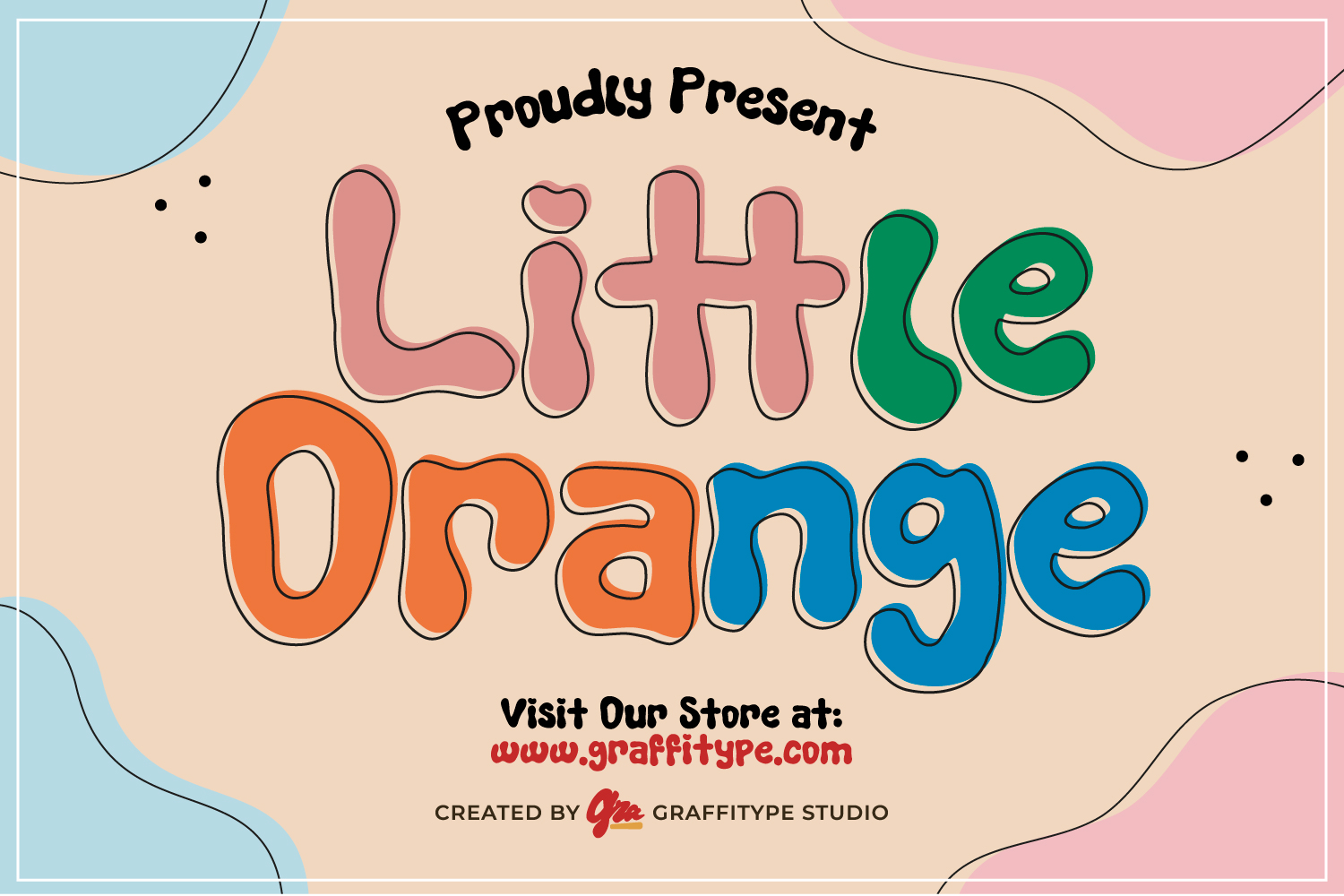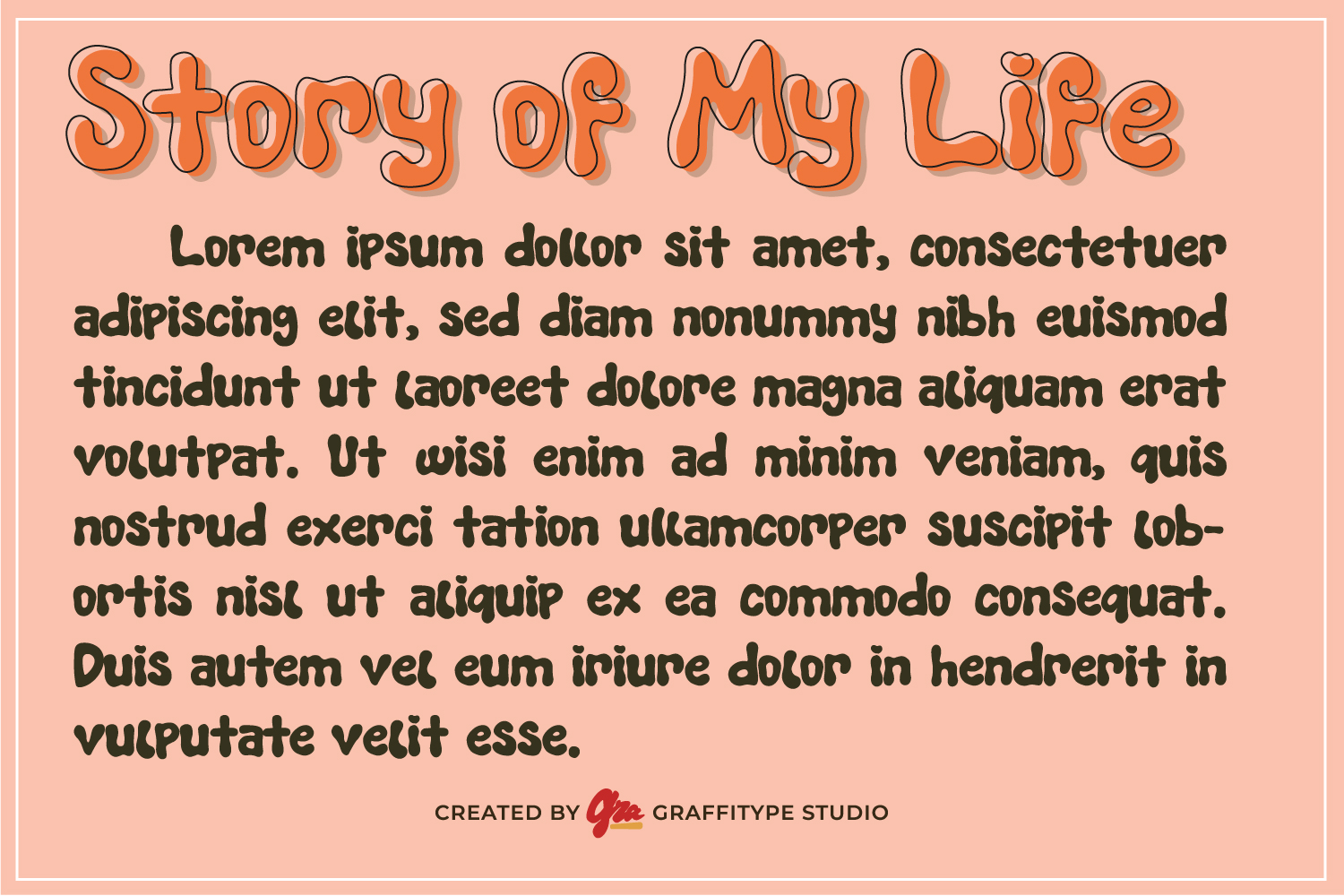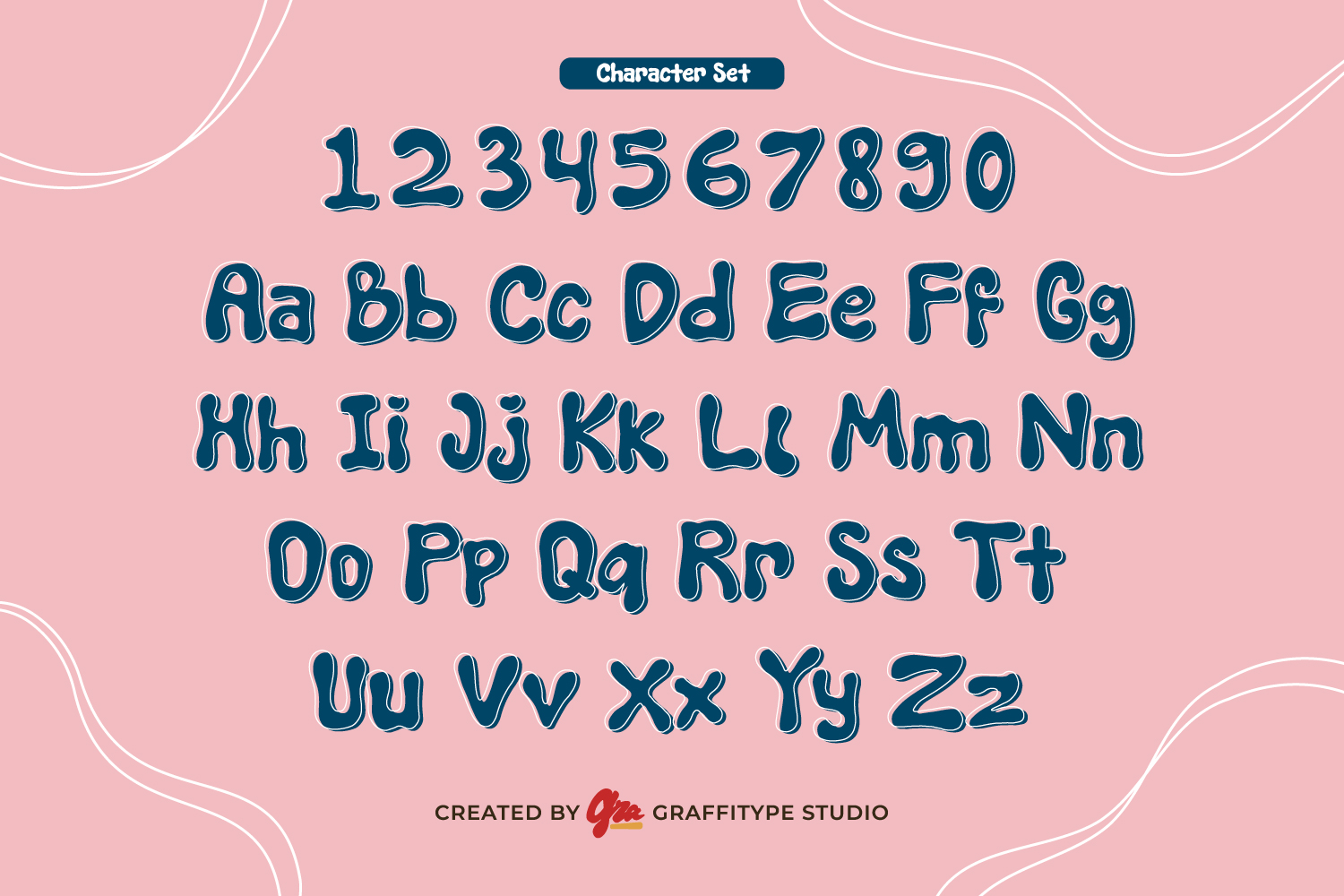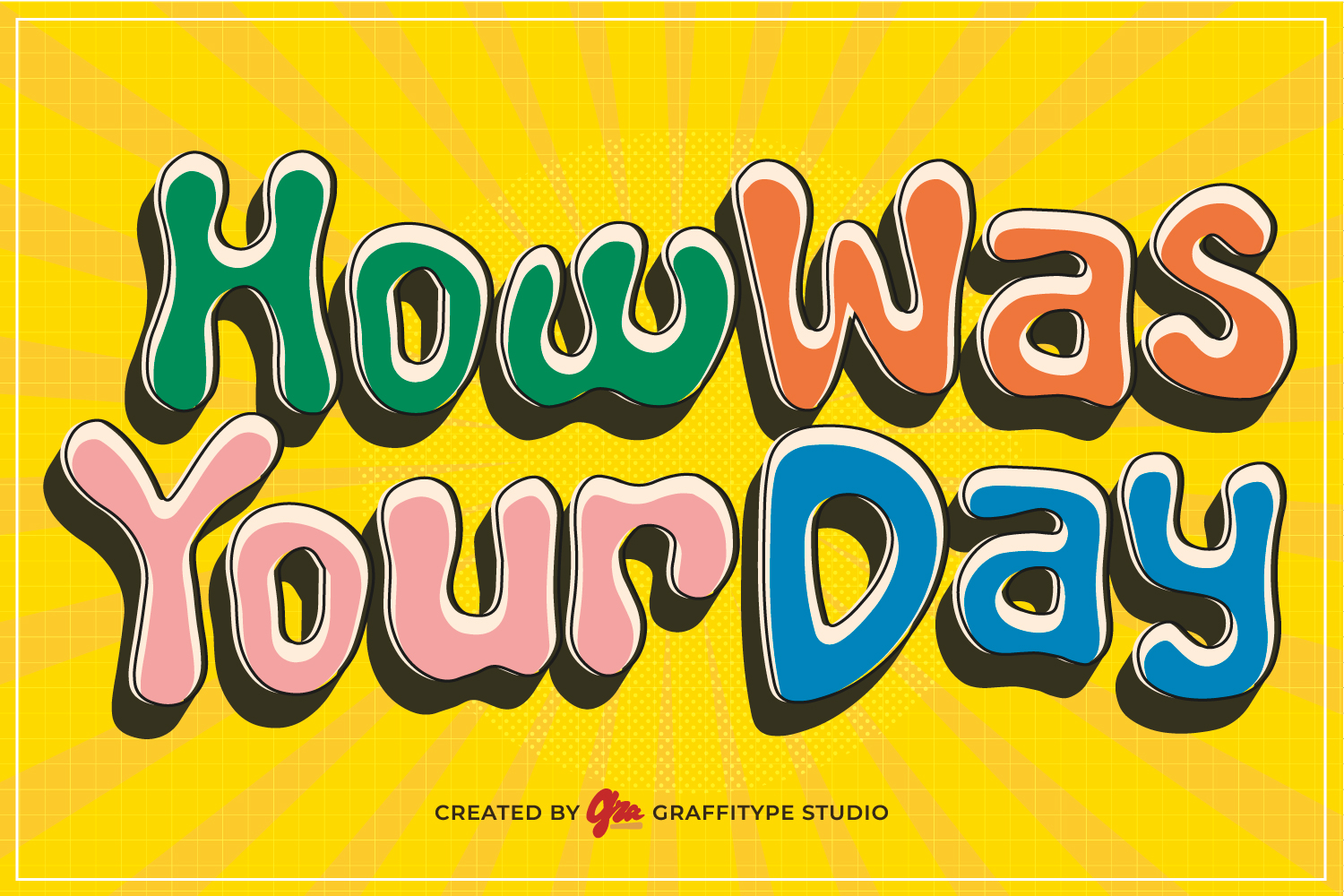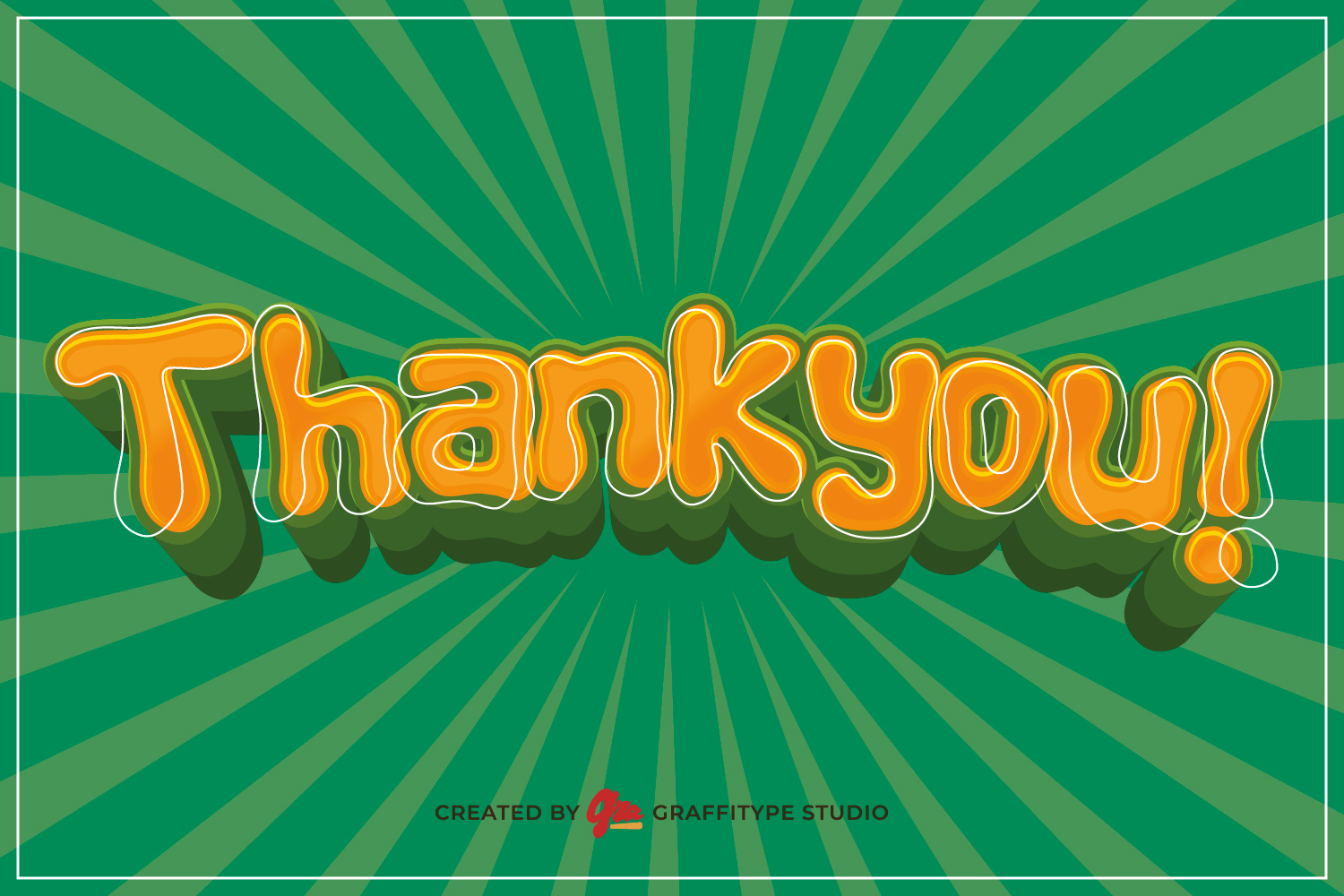
Little Orange
by
Graffitype Studio
Little Orange is a playful and cheerful display font designed to bring joy and imagination to any project. With its soft rounded edges, bouncy letterforms, and cartoon-inspired style, it captures the lighthearted spirit of childhood. Perfect for kids’ books, educational materials, games, birthday invitations, and anything fun, Little Orange radiates warmth and approachability.
Its bubbly, hand-drawn feel adds personality and charm, making every word feel alive and expressive. Whether you’re designing for young audiences or just want a font that feels friendly and fun, Little Orange is your perfect sidekick for creative adventures.